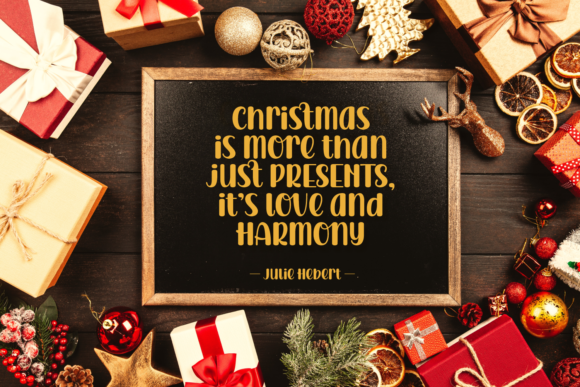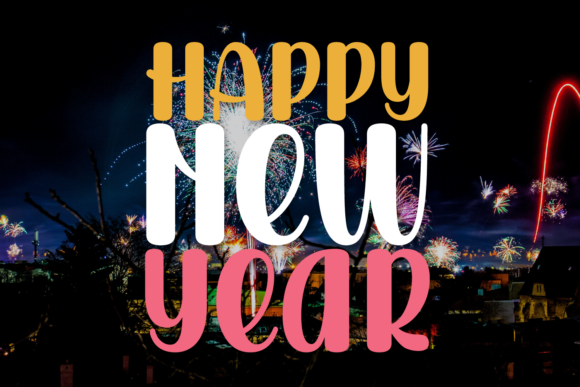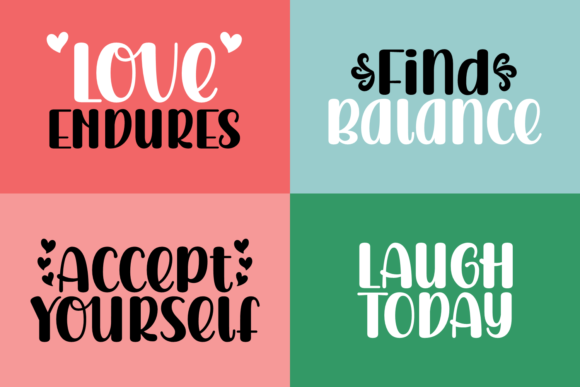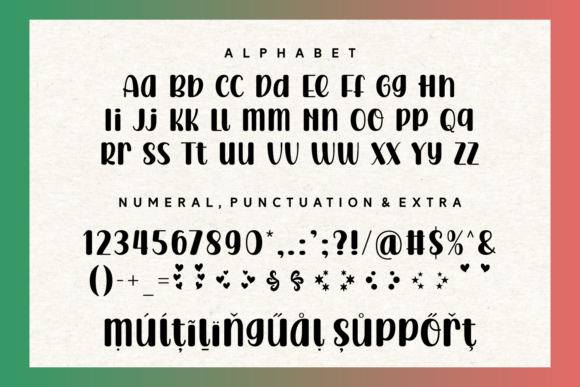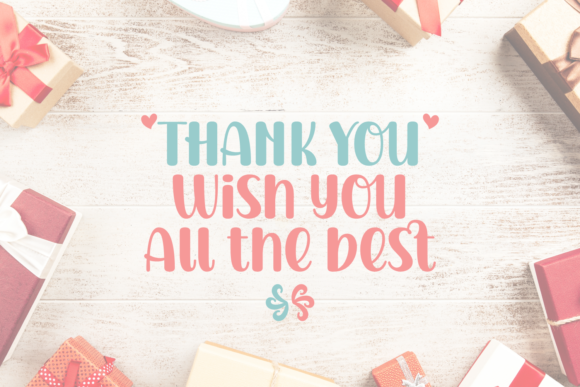
About Christmas Month Font
Christmas Month is a curly, festive and charming handwritten font. It is PUA encoded which means you can access all glyphs and swashes with ease! This font is perfect for wintery themed designs, especially when combined with warm colors.